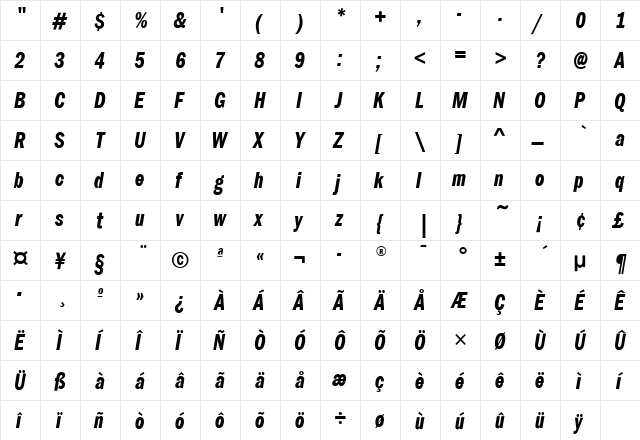
FranklinGotCmpITC Demi Italic
| Style | Demi Italic |
| Foundry | E+F Designstudios. ITC Franklin Gothic is a registered trademark of International Typeface Corporation |
Design Context for FranklinGotCmpITC Typeface
FranklinGotCmpITC takes a measured approach to typography — its balanced proportions and neutral character make it a reliable workhorse for both digital and print work. Its italic angle brings a sense of urgency and motion to the letterforms.
Pro Tip: Use FranklinGotCmpITC for emphasis, pull quotes, and subheadings where its slanted energy can add rhythm to the layout.